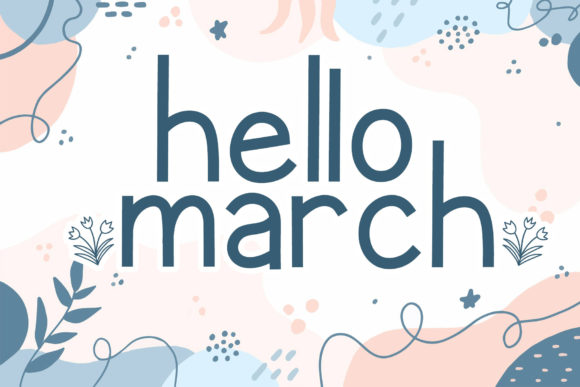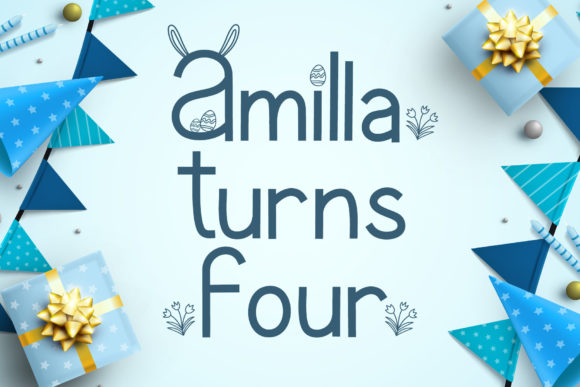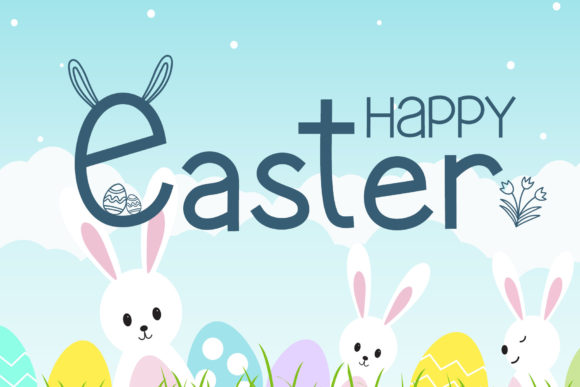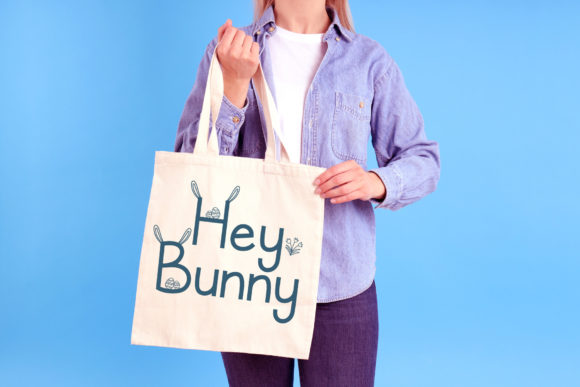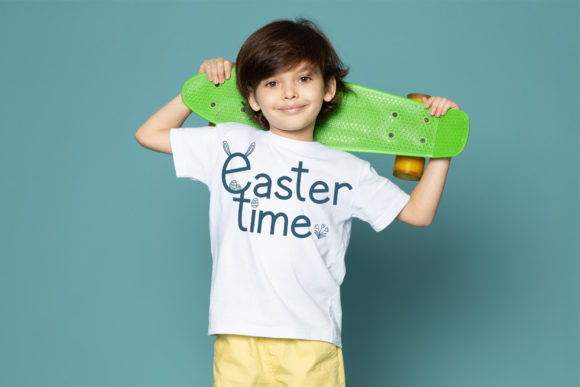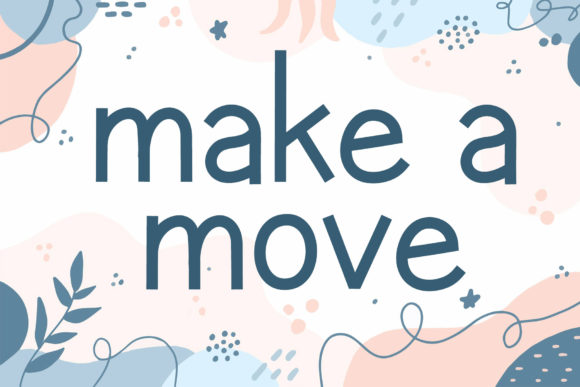
Easter Flower Font: The Perfect Addition to Your Font Library
Are you a designer or crafter looking for a unique and versatile font to elevate your creations? Look no further than the Easter Flower Font! This adaptable and sweet display font is perfect for a wide range of topics and projects, making it an incredible asset to your font library.
What Makes Easter Flower Font So Special?
The Easter Flower Font is a standout font that can add a touch of elegance and whimsy to any design. Its unique and intricate design makes it perfect for creating eye-catching headings, titles, and graphics. Whether you’re working on a spring-themed project, a Easter-themed design, or simply looking for a beautiful font to add to your library, Easter Flower Font is an excellent choice.
One of the best features of the Easter Flower Font is that it is PUA (Private Use Area) encoded. This means that you can access all of the glyphs and swashes with ease, giving you maximum flexibility and creative control. With PUA encoding, you can easily insert special characters, ligatures, and other unique features into your designs, taking them to the next level.
The Easter Flower Font is incredibly versatile, making it suitable for a wide range of design projects. Here are just a few ideas to get you started:
- Easter-themed designs: Create beautiful Easter cards, posters, and social media graphics with this font.
- Spring-themed designs: Welcome the new season with fresh and colorful designs featuring the Easter Flower Font.
- Wedding and event designs: Add a touch of elegance and sophistication to your wedding and event designs with this beautiful font.
- Branding and packaging: Use the Easter Flower Font to create unique and eye-catching branding and packaging designs.
Why Designers and Crafters Love Easter Flower Font
Designers and crafters love the Easter Flower Font for its unique combination of style, versatility, and ease of use. Here are just a few reasons why:
- Unique and eye-catching design: The Easter Flower Font is unlike any other font on the market, making it perfect for designers and crafters who want to stand out.
- Easy to use: With PUA encoding, you can easily access all of the glyphs and swashes, making it simple to incorporate into your designs.
- High-quality design: The Easter Flower Font is designed with high-quality and precision, ensuring that it looks great in any design.
Tips for Using Easter Flower Font
Here are a few tips for getting the most out of the Easter Flower Font:
- Experiment with different sizes and colors: The Easter Flower Font looks great in a variety of sizes and colors, so don’t be afraid to experiment and find the perfect combination for your design.
- Pair with other fonts: The Easter Flower Font pairs well with a range of other fonts, so try combining it with different fonts to create a unique look.
- Use with graphics and images: The Easter Flower Font looks great when used with graphics and images, so try incorporating it into your designs with illustrations, photos, and more.
The Easter Flower Font is a beautiful and versatile font that is perfect for designers and crafters looking to elevate their creations. With its unique design, PUA encoding, and endless design possibilities, it’s an incredible asset to any font library. Whether you’re working on a Easter-themed project or simply looking for a beautiful font to add to your collection, the Easter Flower Font is an excellent choice.